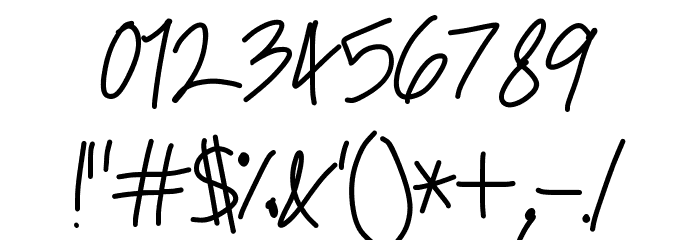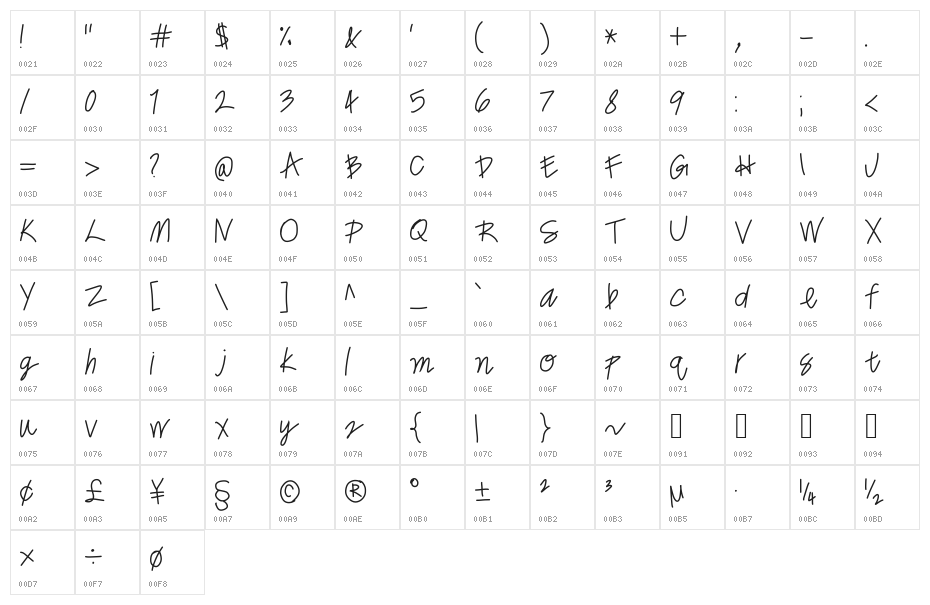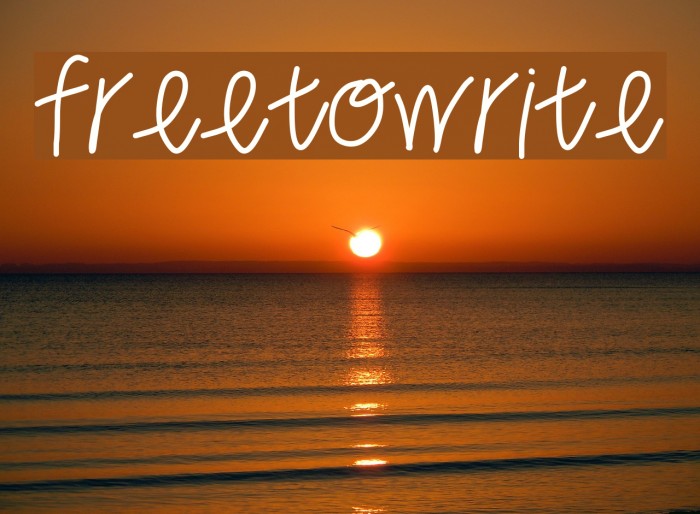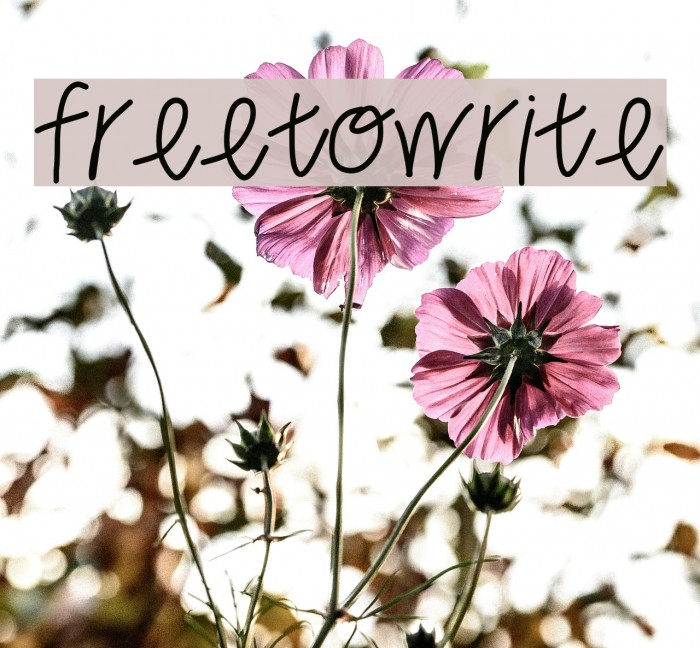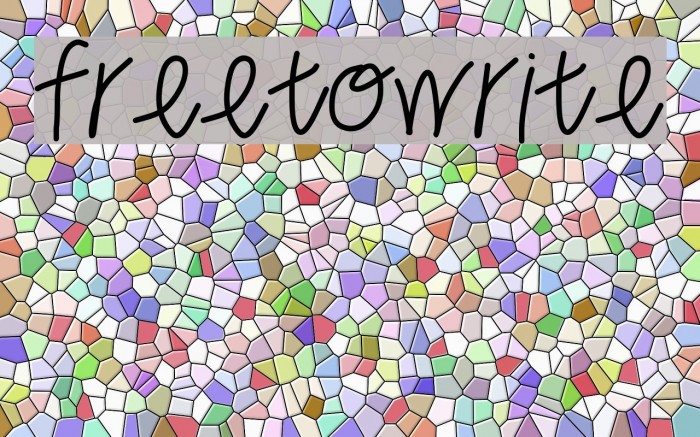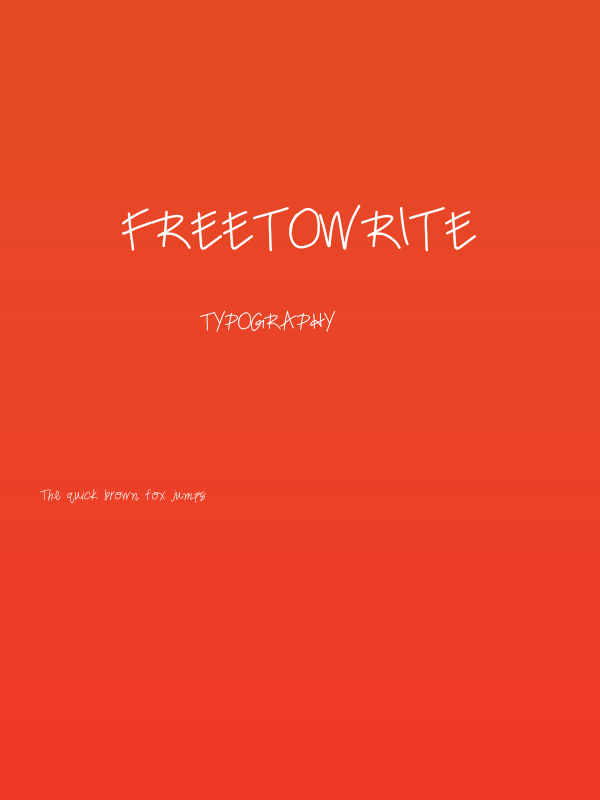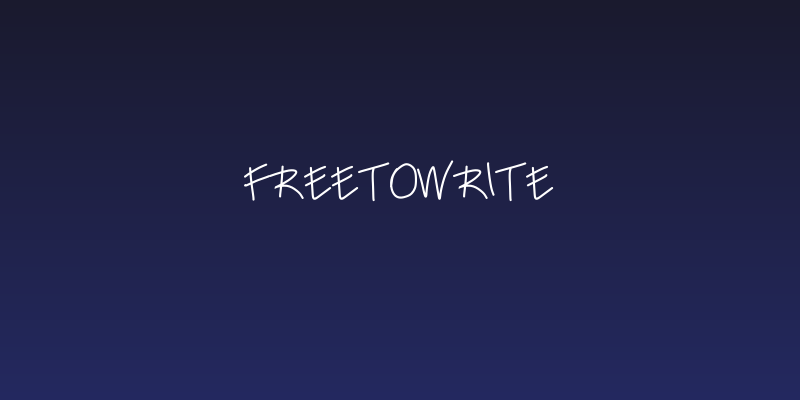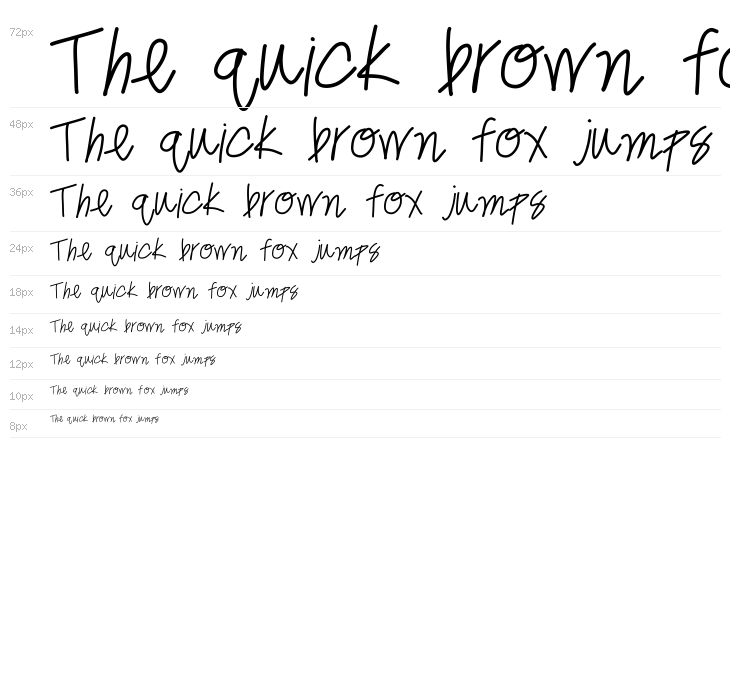
freetowrite Font
freetowrite Description
This font exhibits a casual, handwritten style with a playful and informal appearance. The characters are slightly slanted, giving a dynamic and energetic feel. The strokes are consistent in thickness, contributing to a cohesive look. The uppercase letters are bold and prominent, while the lowercase letters maintain a smooth flow, enhancing readability. The numerals and special characters are well-integrated, matching the overall aesthetic. This font is versatile, suitable for projects that require a personal touch or a relaxed vibe.
| Use Case | Headlines, Informal text, Personal projects |
| Proposed Projects | Ideal for greeting cards, personal branding, social media graphics, and informal invitations. |